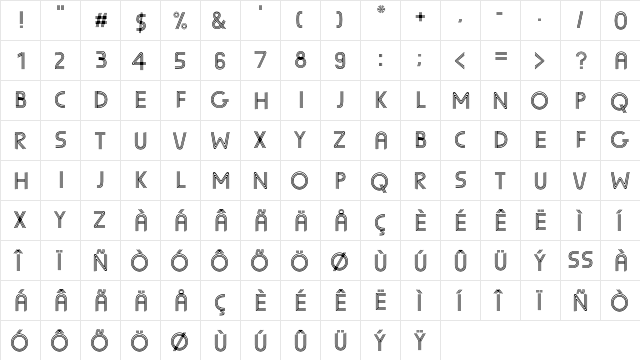
Sunscreen Triline Equal Font Preview
Sunscreen Triline Equal
Sunscreen Triline Equal Font Details
| Style | Triline Equal |
| Designer | Simon Cozens |
Design Context for Sunscreen Typeface
Sunscreen takes a measured approach to typography — its balanced proportions and neutral character make it a reliable workhorse for both digital and print work.